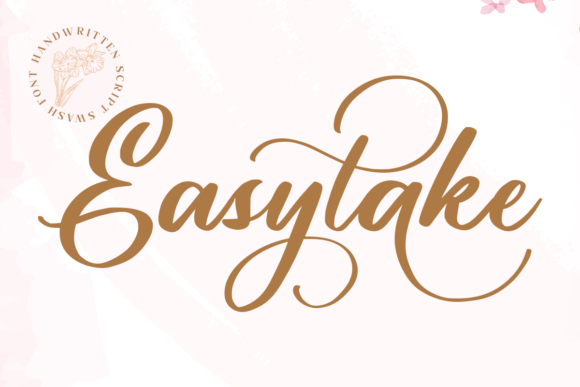
Easytake Font: The Ultimate Handwritten Font for Creative Designs
Are you looking for a font that can add a touch of elegance and quirkiness to your designs? Look no further than the Easytake Font! This beautiful handwritten font is perfect for creating stunning wedding invitations, posters, magazines, cosmetics, t-shirt designs, lettering, greeting cards, and much more. In this article, we’ll dive into the features and benefits of Easytake Font and explore how it can elevate your design game.
What is Easytake Font?
Easytake Font is a unique and versatile handwritten font that is designed to add a personal touch to your designs. Its incredibly versatile style makes it perfect for a wide range of applications, from formal events to casual designs. The font is carefully crafted to provide a beautiful and elegant look that will make your designs stand out.
Key Features of Easytake Font
- PUA Encoded: Easytake Font is PUA encoded, which means you can access all of the glyphs and swashes with ease. This makes it simple to use and customize the font to suit your design needs.
- Handwritten Style: The font features a beautiful handwritten style that is both elegant and quirky. Its unique look makes it perfect for designs that require a personal touch.
- Versatile: Easytake Font is incredibly versatile and can be used for a wide range of applications, including wedding invitations, posters, magazines, cosmetics, t-shirt designs, lettering, greeting cards, and more.
Benefits of Using Easytake Font
So, why should you choose Easytake Font for your designs? Here are just a few benefits of using this amazing font:
- Adds a Personal Touch: Easytake Font adds a personal touch to your designs, making them more unique and engaging.
- Increases Versatility: The font’s versatility means you can use it for a wide range of applications, from formal events to casual designs.
- Elegant and Quirky: Easytake Font’s elegant and quirky style makes it perfect for designs that require a touch of sophistication and whimsy.
- Time-Saving: The font’s PUA encoding and ease of use make it a time-saving solution for designers who need to create high-quality designs quickly.
Design Ideas Using Easytake Font
So, what can you create with Easytake Font? Here are just a few design ideas to get you started:
- Wedding Invitations: Create stunning wedding invitations that set the tone for a beautiful and elegant wedding.
- Posters: Design eye-catching posters that grab attention and communicate your message in a unique and creative way.
- Magazines: Use Easytake Font to create engaging and stylish magazine layouts that showcase your content in a beautiful and elegant way.
- Cosmetics: Create stunning cosmetic packaging that stands out on store shelves and communicates your brand’s personality.
- T-Shirt Designs: Design unique and stylish t-shirt designs that showcase your brand’s personality and style.
In conclusion, Easytake Font is a beautiful and versatile handwritten font that is perfect for designers and crafters who want to add a touch of elegance and quirkiness to their designs. Its PUA encoding, ease of use, and elegant style make it a must-have font for any designer looking to elevate their design game. Whether you’re creating wedding invitations, posters, magazines, cosmetics, t-shirt designs, or greeting cards, Easytake Font is the perfect choice.